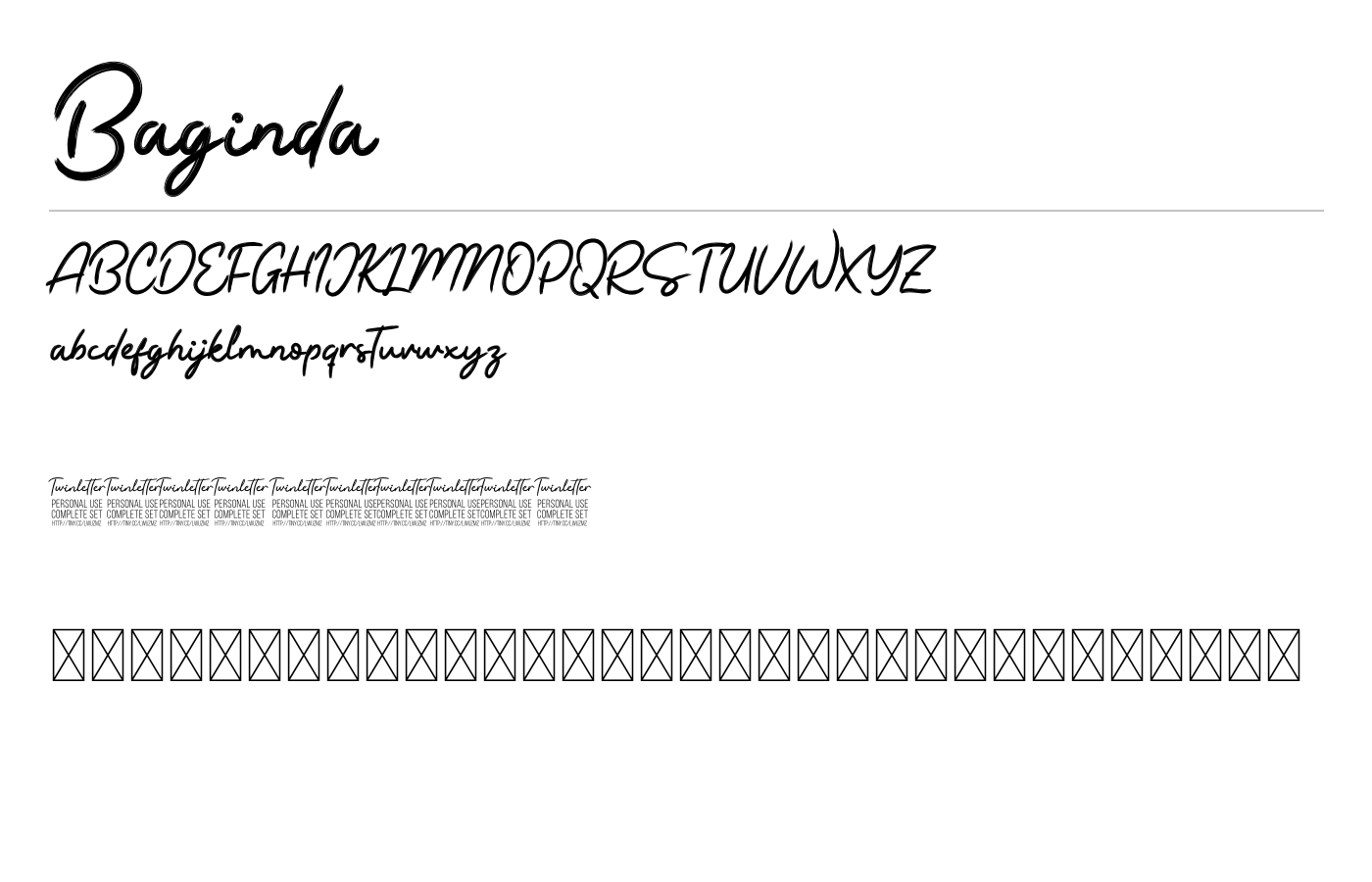
Baginda is a stylish script font with a lively, hand-drawn feel, featuring smooth, flowing strokes and a casual elegance. Its balanced weight and flowing letterforms make it perfect for branding, invitations, and creative projects that want to convey warmth and personality. This font works well in headlines, logos, and any design needing a friendly yet sophisticated handwritten touch.
Baginda Font
About Baginda Font
| Font family | Baginda Font |
| Designer | rozikan |